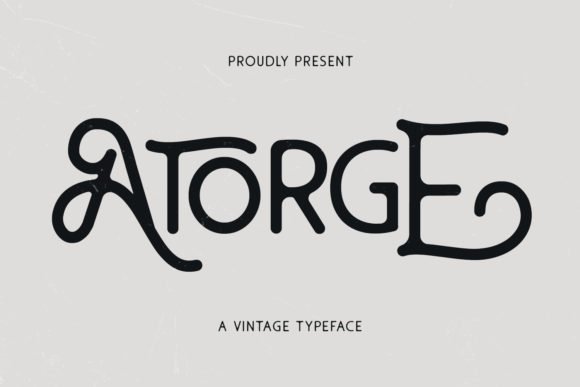
Introduction to Atorge Font
Atorge is a vintage styled and unique display font.
Masterfully designed to become a true favorite, this font has the potential to bring each of your creative ideas to the highest level .
Key Features of Atorge Font